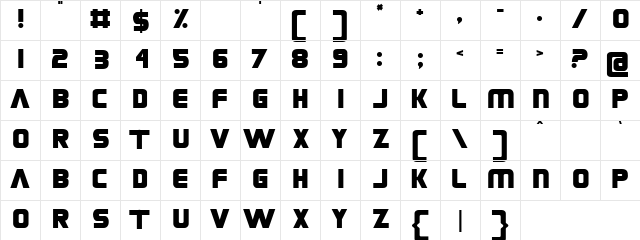
Imberse Metalicca Regular
Design Context for Imberse Metalicca Typeface
Imberse Metalicca offers clean, dependable letterforms without strong stylistic allegiance, making it a practical choice for designers who need flexibility.